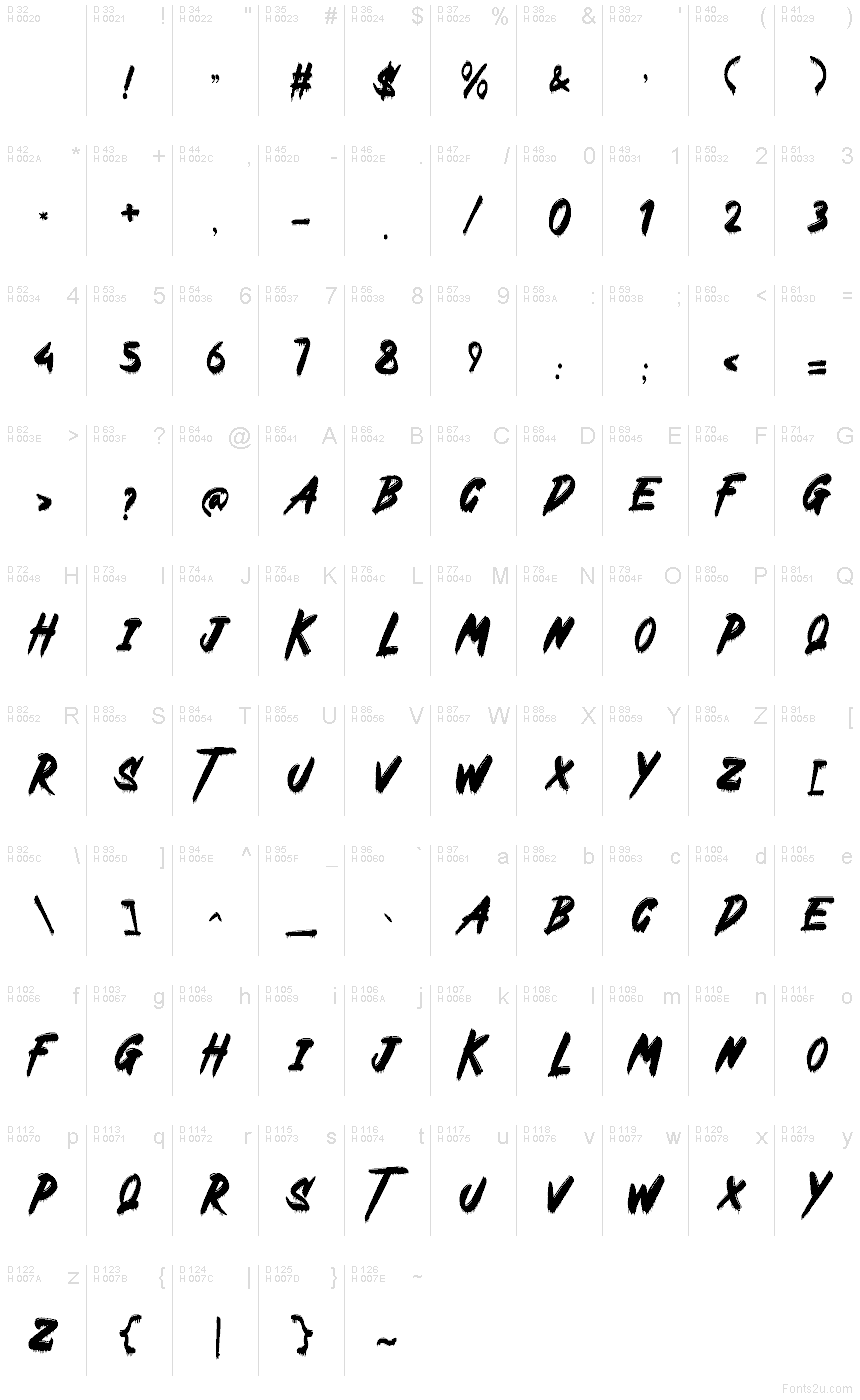
Tacurse
Tacurse font by Dhabee Studio is a free scary display font that looks carved in a hurry and still wet with ink. Thick, slashed strokes lunge forward with a gritty brush texture, while subtle drips cling to the ends like fresh paint. The rhythm is fast and aggressive, giving headlines a jump-scare snap without sacrificing legibility at a distance.
Using Tacurse, you can push tension on horror posters, Halloween flyers, slasher movie titles, haunted house signage, game covers, and escape-room branding. This free font shines at large sizes where its streaks and drips can breathe. Pair it with a clean condensed sans for body copy, and let Tacurse handle the screams up top.